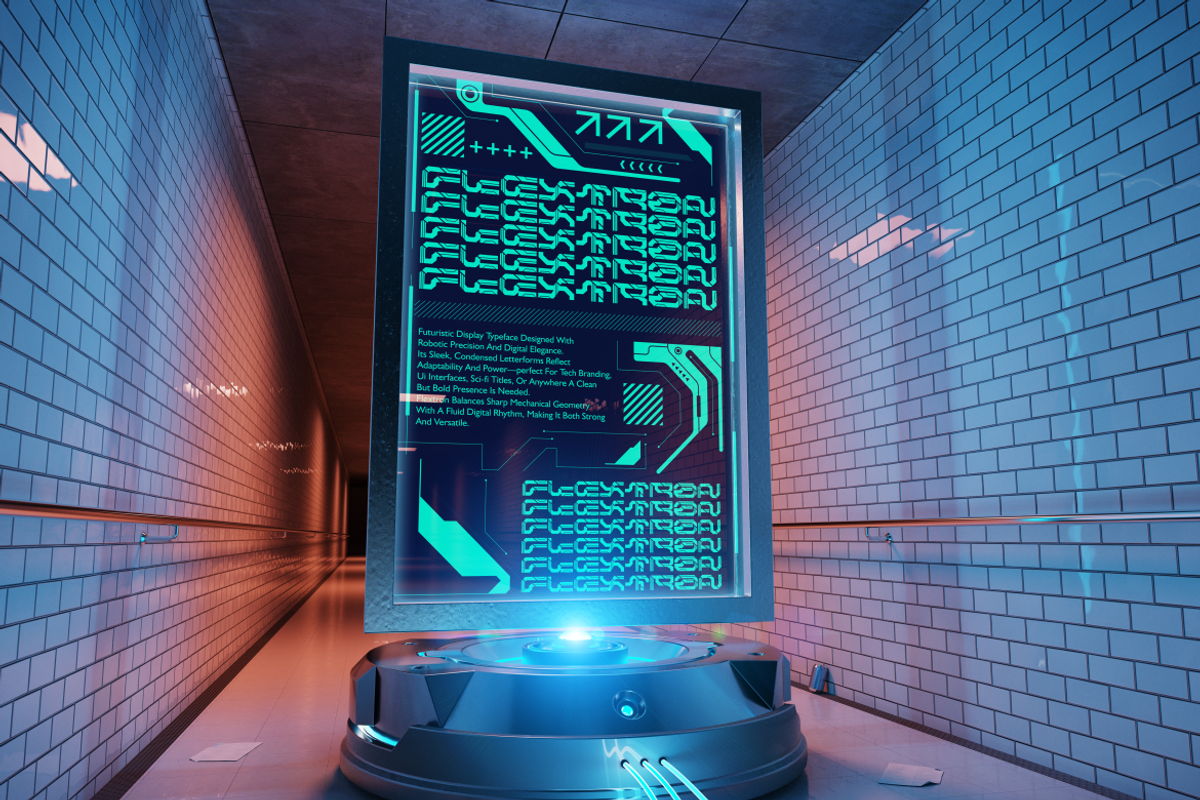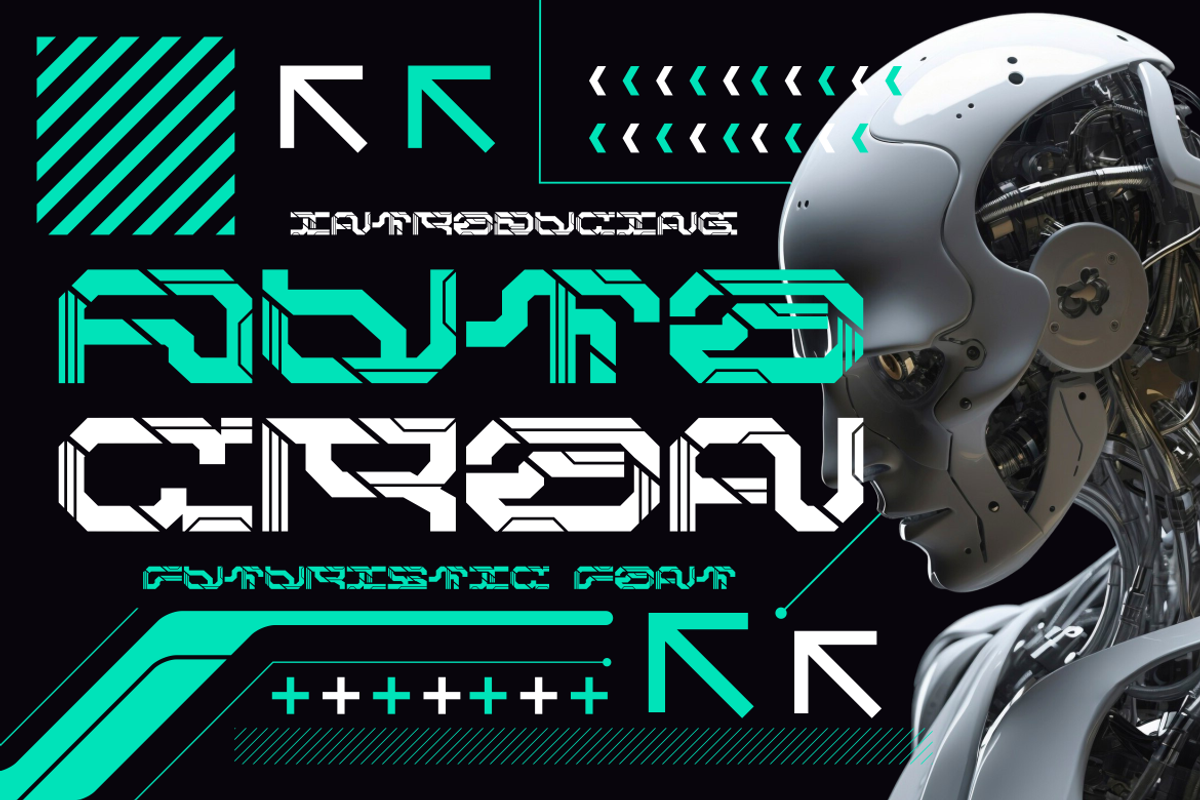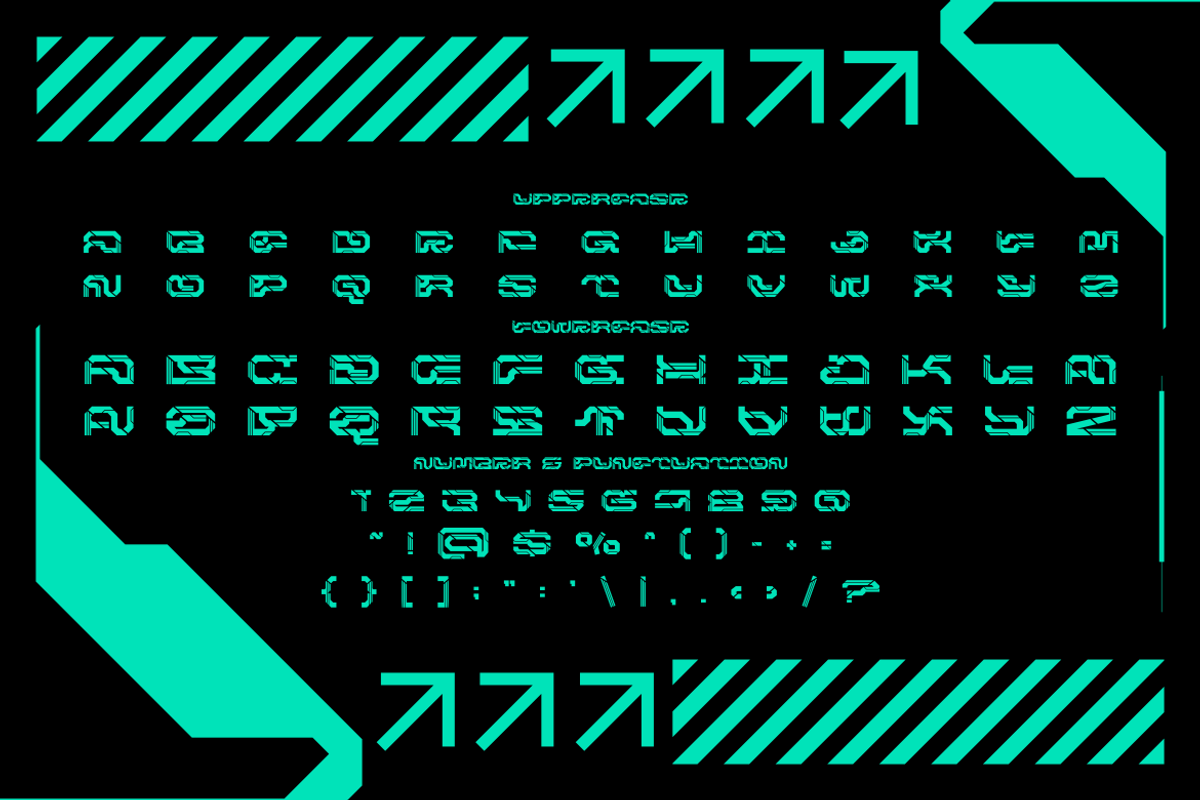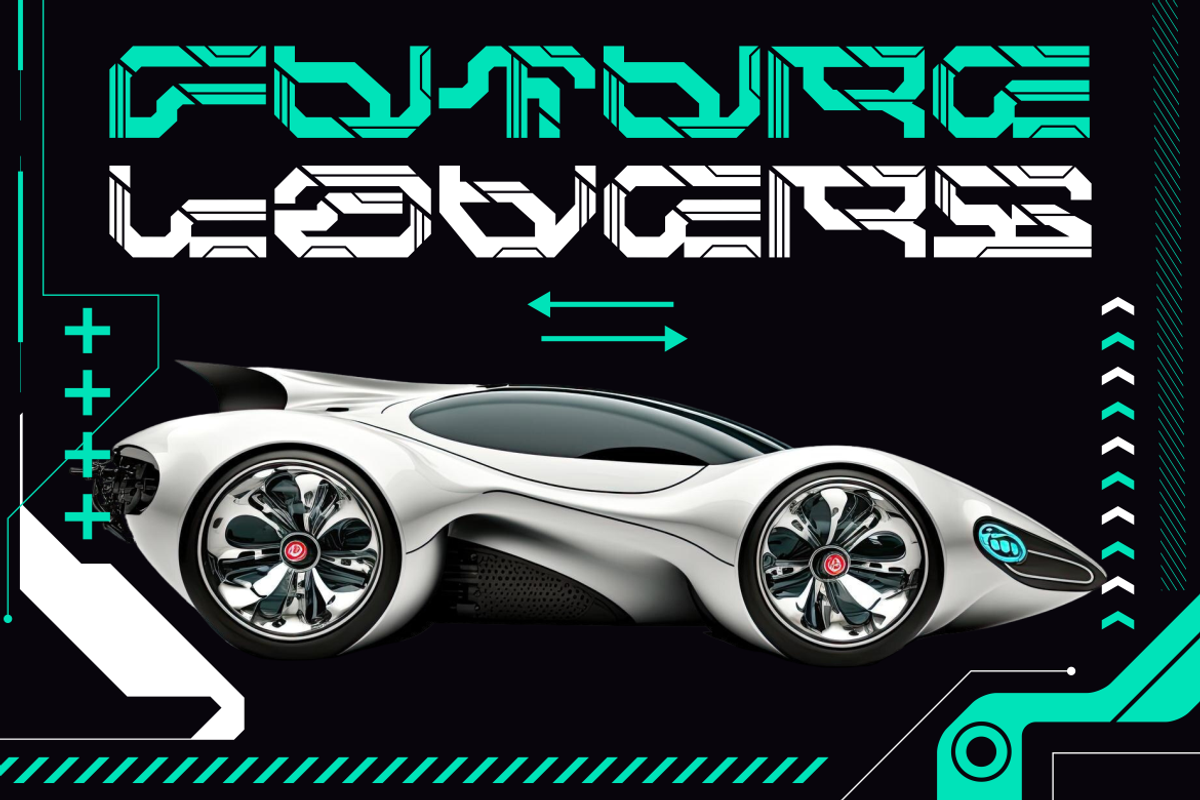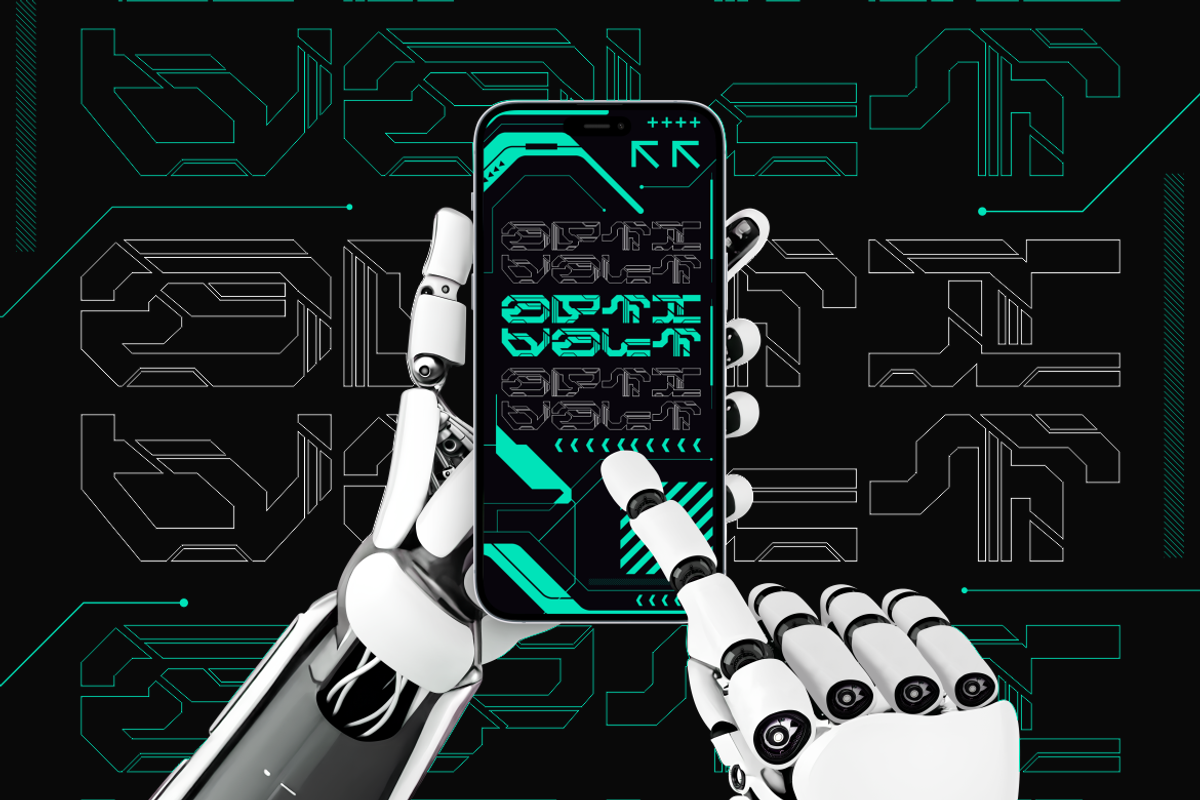
Autocron Futuristic Font
Autocron Futuristic Font is a bold display typeface designed with a mechanical edge and digital rhythm. The letterforms are built from sharp geometric cuts, angled lines, and layered strokes, giving each character a mecha-inspired presence. Its condensed style and segmented details reflect the essence of robotics, cyberpunk design, and advanced technology. The alternating strokes and circuit-like motifs enhance its futuristic appeal, making it stand out in high-tech visual projects. Autocron works seamlessly in bold layouts, from metallic posters and sci-fi film titles to experimental branding that demands a unique digital touch.
Every curve and angle of Autocron balances precision with creativity, making it versatile for many design needs. It shines in logo design, packaging, book covers, and modern UI graphics. This font gives energy and innovation to your projects while maintaining strong readability in large displays. Whether paired with neon palettes or dark cyberpunk visuals, Autocron provides the right futuristic voice. Use it for branding, marketing campaigns, gaming titles, or even tech magazines that demand a cutting-edge style. Autocron is more than a font—it’s a design statement for the future.